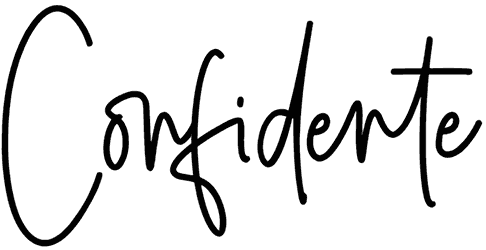
Confidente Font
Get in line early cause of the magnificent gift of RB stock; postcard font with signature-style uncovering for assembling a sweet and memorable experience. Confidente with a delicate body can dance artistically in any display, including posters, quotes, stickers, invitations, and much more.
Create a great visual impact through the sophisticated lettering of this handwritten font, and don’t worry about its unclear outwards. Our inventory, which is growing in seconds, is the place of such exquisite assets for free!